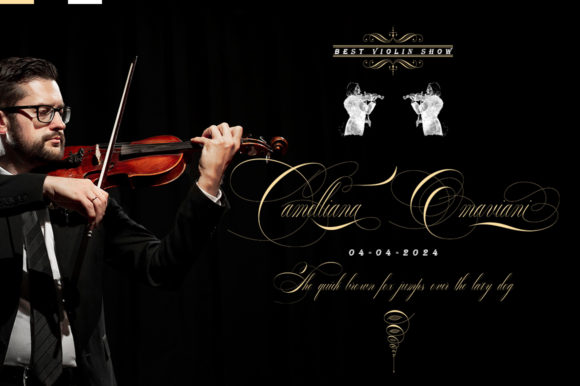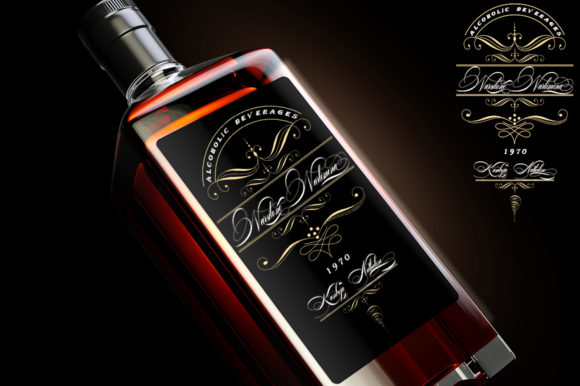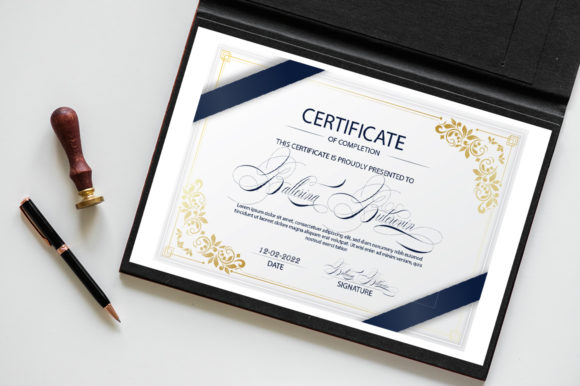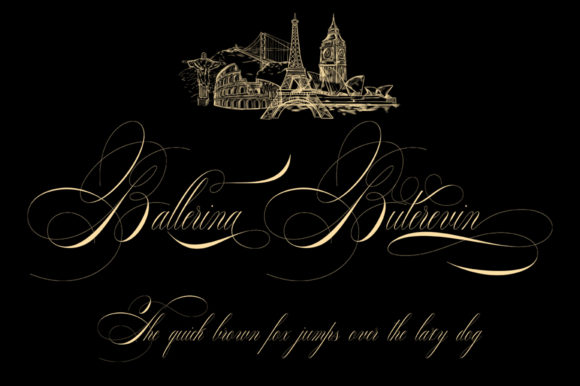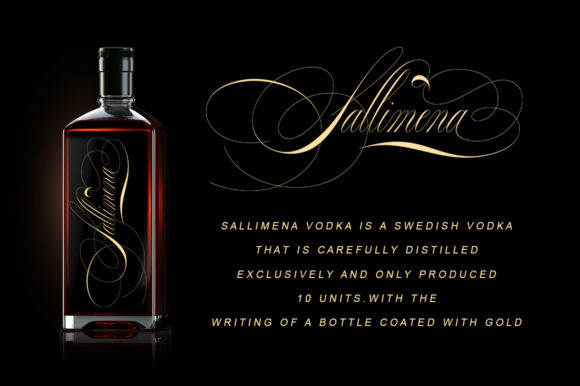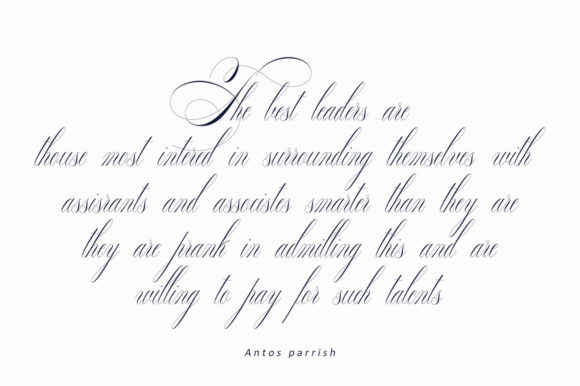
Unleashing the Art of Handwritten Elegance
As designers, we’ve all been there – staring at a blank page, trying to put into words the perfect message for a special occasion. For me, it was designing a wedding invitation for a close friend. I wanted it to be more than just a formal announcement, but a reflection of the love and joy that the couple shared. That’s when I stumbled upon the perfect font – Banalline Signature Font.
This elegant font is designed to add a personal touch to any design, from wedding invitations to business cards. With its varying baseline, smooth lines, gorgeous glyphs, and stunning alternates, Banalline Signature Font is the perfect tool for designers looking to create a unique and memorable visual identity.
Whether you’re a seasoned designer or just starting out, the Banalline Signature Font is a valuable addition to your toolkit. Its versatility and beauty make it a must-have for anyone looking to add a handwritten touch to their designs.
Banalline Signature Font Key Features
- Font Family: Banalline Signature Font is a unique, handwritten font designed to mimic hand-written signatures.
- Character Count: Includes over 600 characters, including uppercase and lowercase letters, numbers, and punctuation marks.
- Unique Characteristics: Features a distinctive, cursive style with varying line widths, giving it a personal and authentic touch.
Design Review: Banalline Signature Font
I recently had the chance to work with the Banalline Signature Font, and I must say it’s an interesting addition to the world of typography. Here’s my honest take on what works well and what doesn’t.
- Unique aesthetic: The Banalline Signature Font has a distinctive look that sets it apart from more generic fonts. Its quirky, handwritten feel can add a touch of personality to any design.
- Legibility: Despite its unique style, the font is surprisingly legible, making it suitable for a wide range of applications.
- Customization: The font offers a range of weights and styles, allowing designers to tailor it to their specific needs.
- Limited language support: Unfortunately, the Banalline Signature Font only supports Latin-based languages, which may limit its use for non-English projects.
- Overuse: The font’s unique style can quickly become overwhelming if overused. Designers should exercise restraint when applying it to larger projects.
Overall, I think the Banalline Signature Font is a solid choice for designers looking to add a touch of personality to their work. While it has its limitations, its unique aesthetic and customization options make it a valuable addition to any font collection.
Here are some tips for getting the most out of the Banalline Signature Font:
- Combine the Banalline Signature Font with other fonts for a layered, sophisticated look.
- Use the font to create eye-catching headings and titles.
The Banalline Signature Font is perfect for:
- Creating elegant business cards and letterheads.
- Designing eye-catching social media graphics and advertisements.
- Adding a touch of sophistication to presentations and reports.